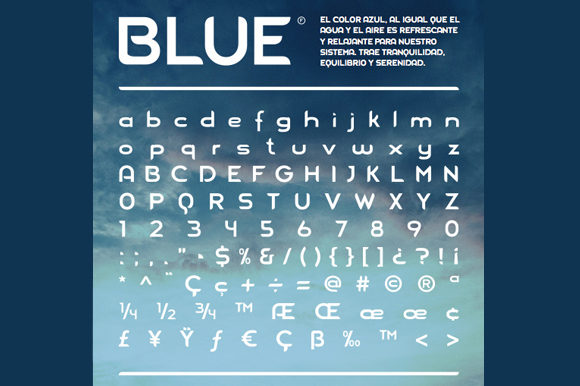
The Blue Font: A Simple yet Stunning Display Font
I’ll never forget the time I was working on a project for a client who needed a font that was both clean and elegant. I had been searching for hours, but nothing seemed to fit the bill. That was when I stumbled upon Blue Font. With its simple and casual design, I knew I had found the perfect fit. In this article, I’ll share my experience with Blue Font, its features, and how to make the most of it in your designs.
An Honest Review of Blue Font
So, what makes Blue Font so special? Here are a few things I love about it:
• ✨ Clean and simple design: Blue Font has a neat and beautiful arrangement of letters that makes it perfect for both formal and non-formal designs.
• ✅ Easy to read: The font is clear and legible, making it ideal for body text and headings.
• 💡 Versatile: Blue Font can be used in a variety of design projects, from brochures to websites.
Of course, no font is perfect, and Blue Font has a few quirks:
• 🤔 Limited glyphs: Blue Font has a limited number of glyphs, which can make it less suitable for projects that require a wide range of special characters.
• ⚠️ Not suitable for body text: While Blue Font is easy to read, it’s not the best choice for body text due to its display font design.
One of the best things about Blue Font is its OpenType features and glyphs. These features allow you to customize your text and make it more visually appealing. Here are some tips on how to use them:
• Stylistic alternates: Blue Font offers stylistic alternates that allow you to switch between different font styles.
• Glyphs: Blue Font has a range of glyphs that you can use to add special characters to your text.
The Backstory of Blue Font
Blue Font was designed by a team of typographers who wanted to create a simple and clean display font. The font was inspired by the beauty of handwritten letters and the elegance of modern typography. The designers aimed to create a font that was both easy to read and visually appealing.
Font Name Blue Font
Author Daniel Basualdo
What is Blue Font? Blue Font is a simple and casual display font with a clean feel.